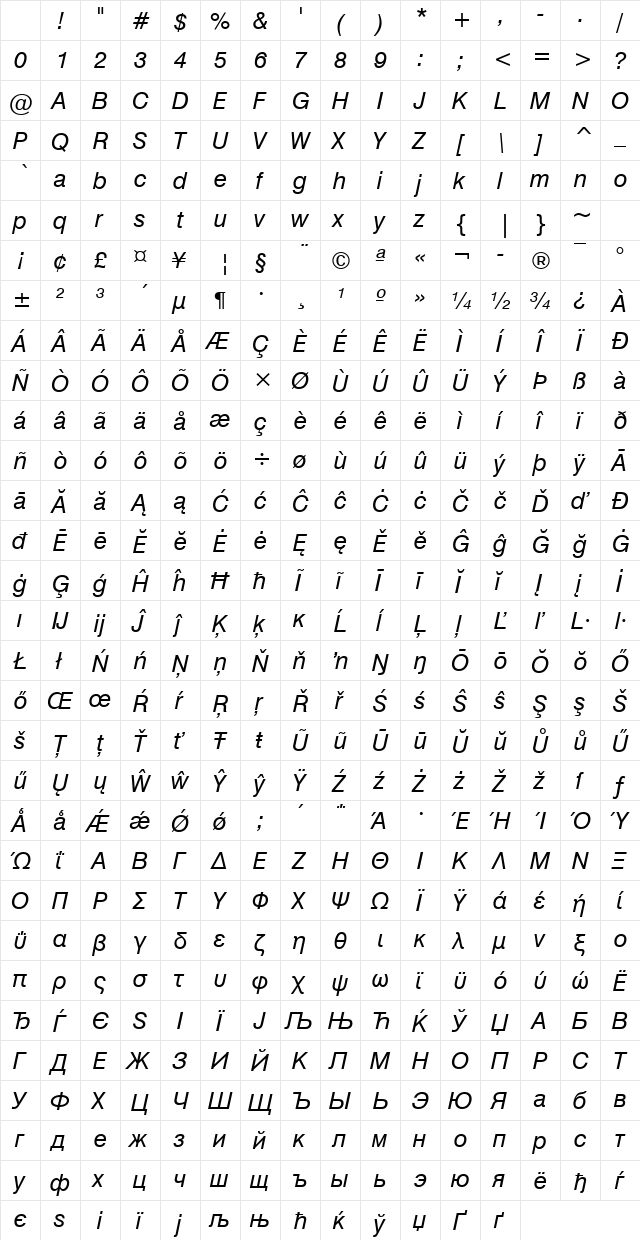
Complete Swis721 Win95BT Italic glyph index. Displaying only characters natively supported by Swis721 Win95BT Italic font.
Swis721 Win95BT is a composed and adaptable typeface that performs quietly and consistently across a wide range of design contexts. The slanted form adds forward momentum and visual energy.